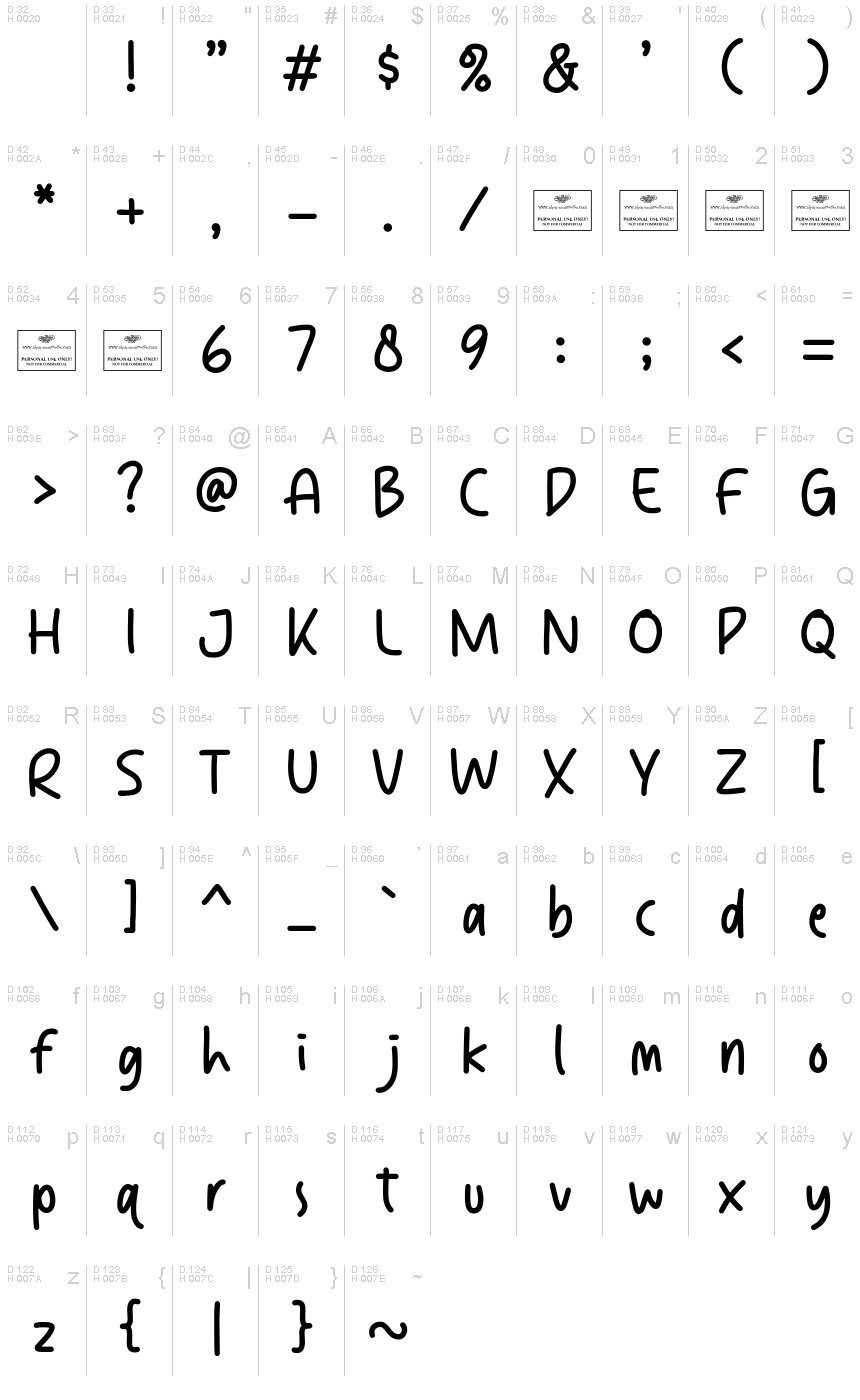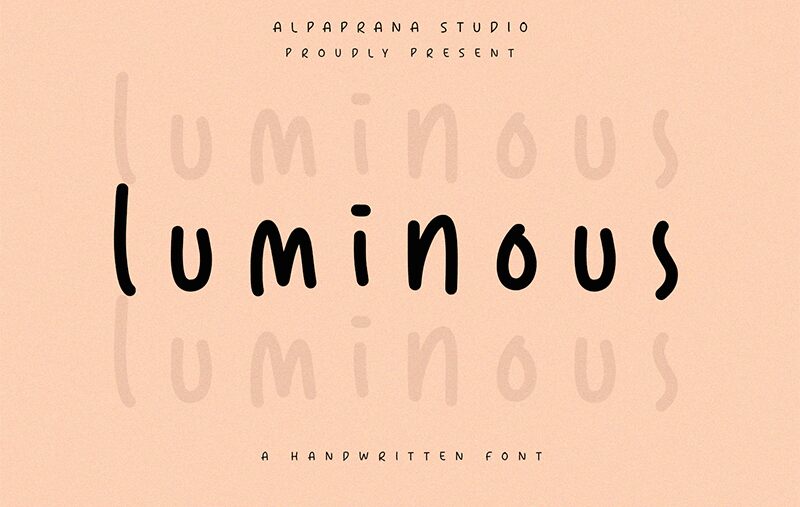
Luminous
Luminous font is designed by Alpaprana Studio. With its smooth curves and low contrast, Luminous exudes a casual and playful handwritten style. The rounded letters convey a modern, informal mood, making it perfect for projects that seek authenticity and personality.
Luminous font's versatility makes it suitable for various creative endeavors. It’s perfect for crafting invitations, designing logos, and creating unique branding elements. It’s also great for posters, quotes on social media, personal blogs, wedding cards or anything that requires a touch of characterful fluidity with sincerity thrown in for good measure!